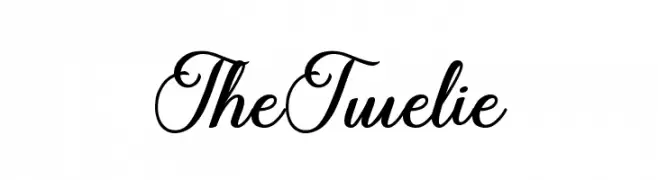
A bold, hand-drawn font with a rough, energetic texture.
An elegant cursive script with flowing, ornate characters.
A tall, narrow, hand-drawn font with a casual and stylish appearance.
A bold, blackletter-style font with sharp, angular strokes.
A bold, playful handwritten font with thick strokes and smooth curves.
A flowing, cursive font with a natural handwriting style, perfect for elegant and personal designs.
A cursive, handwritten font with elegant loops and swirls.
A bold, hand-drawn font with an expressive and dynamic style.
A bold, modern sans-serif font with clean, geometric lines.